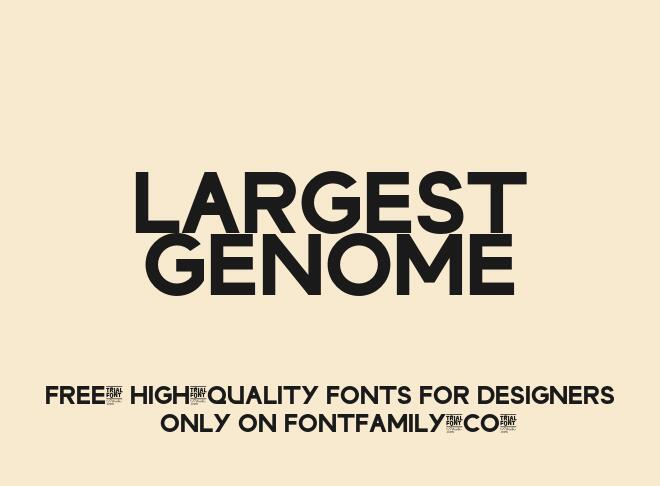
Largest Genome Font
Introducing the Largest Genome Font, a modern, geometric, display, sans serif typeface that is a perfect blend of form and function. Crafted by the visionary minds at DNA Foundry, this font is inspired by the intricate patterns visible in DNA sequences, making it a unique addition to your design arsenal. Its clean, symmetrical lines and bold geometric shapes make it ideal for use in logos, headlines, posters, and branding. While it shares some similarities with other geometric fonts, the Largest Genome Font stands out with its unique character and personality. The font's modern design makes it a versatile choice for various design projects, and it pairs well with both script and serif fonts. With its open font license, the Largest Genome Font is a great choice for designers looking to push the boundaries of their creative endeavors.